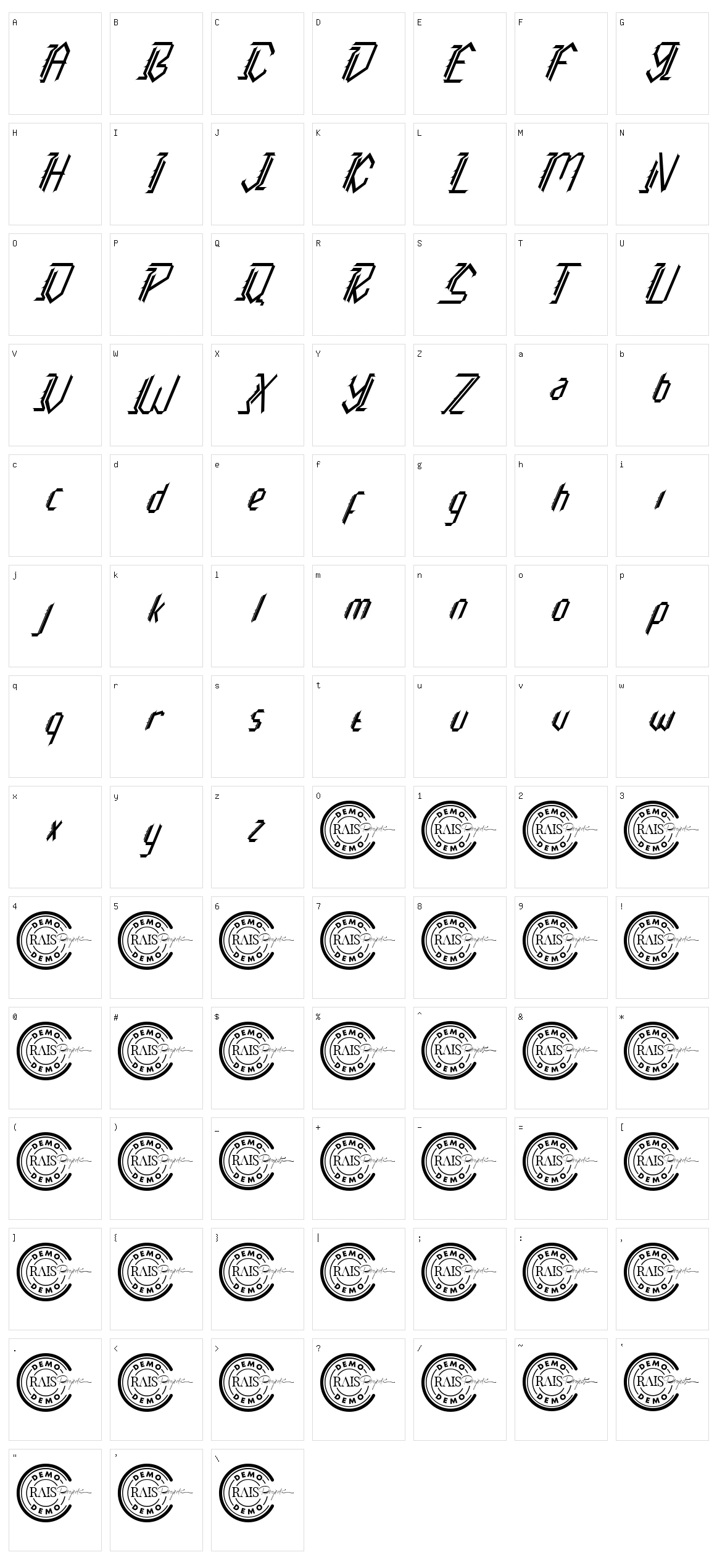
Brainpower
Description: The free font Brainpower is carefully designed by RaisProject, showcasing a thoughtful balance of creativity and usability and belongs to the Gothic font family. When you download the ZIP file, it contains only 50.85 KB of font files, making it lightweight and quick to download. Please review the license details below to understand permitted usage and distribution rights. If license information is not available, we recommend using this font for personal projects only or contacting the author directly for commercial usage permissions.